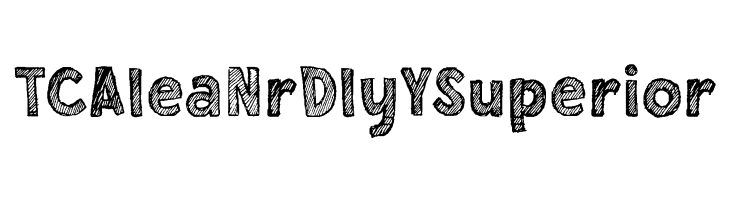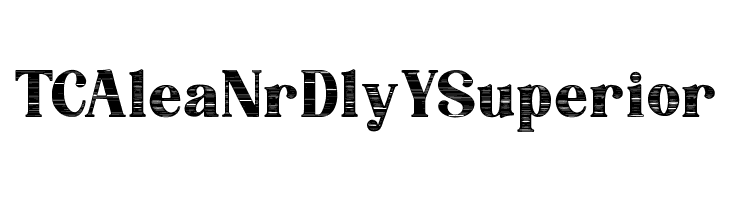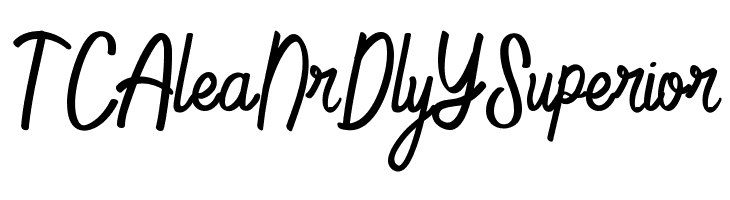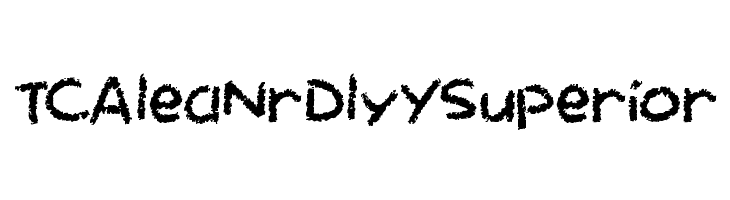
• Chalkboy Regular
A playful, hand-drawn font with a chalk-like texture.
• Chalkboy Regular
A playful, hand-drawn font with a chalkboard texture and sketch-like appearance.
• Chalkcoal
A playful, bold font with a hand-drawn chalkboard style.
• chalkie
A playful, chalk-like handwritten font with bold, dynamic strokes.
• Chalkier
A playful, hand-drawn font with a chalk-like, informal style.
• ChalkPaint
• Chalkpat
A textured, chalk-like font with a playful, hand-drawn style.
• Chalktastic
A playful, chalk-inspired font with a textured, hand-drawn look.
• Chalkvibes
A playful, chalk-like font with bold, textured strokes.
• Chalky Bronson
A bold, textured font with a chalk or brush stroke appearance.
• Chalky Chicken
A playful, chalk-like font with a hand-drawn, textured appearance.
• Chalkzone
A bold, playful font with a chalk-like striped texture and strong serifs.
• Chalkzone
A bold, textured slab serif font with a chalk-like, hand-drawn appearance.
• Challenge - Personal Use
A fluid and elegant script font with decorative, cursive letterforms.
• Challenge Contour
A bold, outlined font with a dynamic and playful style.
• Challenge Shadow
A bold, shadowed font with a playful, three-dimensional style.
• Challina